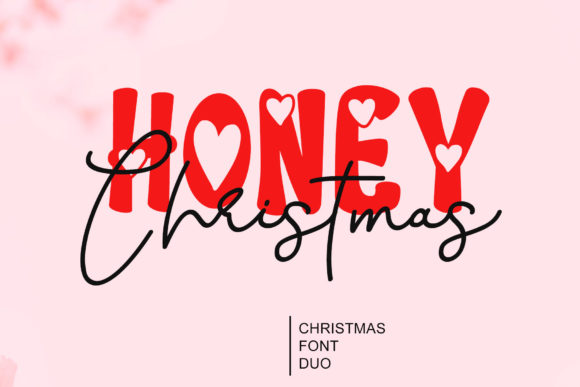
Honey Christmas Font: A Sweet Addition to Your Holiday Crafts
The holiday season is upon us, and with it comes the joy of creating festive crafts that capture the spirit of Christmas. One of the most effective ways to add a personal touch to your holiday projects is by using a unique and eye-catching font. This is where the Honey Christmas Font comes in – a delightful font duo that is sure to bring a touch of chic and cheer to your crafts.
What is Honey Christmas Font?
Honey Christmas Font is a carefully crafted font set consisting of two complementary fonts: a display font and a script font. Designed to work together in perfect harmony, these fonts can be used individually or in tandem to add a dash of festive flair to your holiday crafts. The display font boasts a bold and eye-catching design, while the script font offers a more elegant and cursive approach.
Key Features of Honey Christmas Font
- Dual-font set: The Honey Christmas Font set includes two fonts: a display font and a script font, allowing you to mix and match to create unique and visually appealing combinations.
- Complementary design: The fonts are designed to complement each other perfectly, ensuring a cohesive and stylish look for your holiday crafts.
- Festive and fun: The Honey Christmas Font set is designed to capture the spirit of the holiday season, adding a touch of fun and festivity to your crafts.
Perfect for Holiday Crafts
The Honey Christmas Font set is ideal for a wide range of holiday crafts, including:
- Holiday cards: Add a personal touch to your Christmas cards with the Honey Christmas Font set.
- Gift tags: Create beautiful and unique gift tags using the display and script fonts.
- Paper crafting: The Honey Christmas Font set is perfect for paper crafting projects, such as scrapbooking and card making.
- Sign making: Create eye-catching holiday signs using the bold and elegant fonts.
Tips for Using Honey Christmas Font
To get the most out of the Honey Christmas Font set, here are a few tips:
- Experiment with combinations: Try pairing the display and script fonts in different ways to create unique and visually appealing combinations.
- Use with contrasting colors: Use the Honey Christmas Font set with contrasting colors to make your holiday crafts stand out.
- Add embellishments: Add embellishments, such as glitter or holly, to give your holiday crafts an extra touch of festivity.
Why Choose Honey Christmas Font?
With so many fonts available, why choose the Honey Christmas Font set? Here are a few reasons:
- Unique and eye-catching: The Honey Christmas Font set is a unique and eye-catching addition to any holiday craft.
- High-quality design: The fonts are designed to the highest standard, ensuring a professional and polished look.
The Honey Christmas Font set is a delightful and festive addition to any holiday craft. With its dual-font set, complementary design, and easy-to-use format, it’s the perfect choice for adding a touch of chic and cheer to your holiday projects. Whether you’re creating holiday cards, gift tags, or paper crafting projects, the Honey Christmas Font set is sure to bring a smile to your face and a touch of festive fun to your crafts.